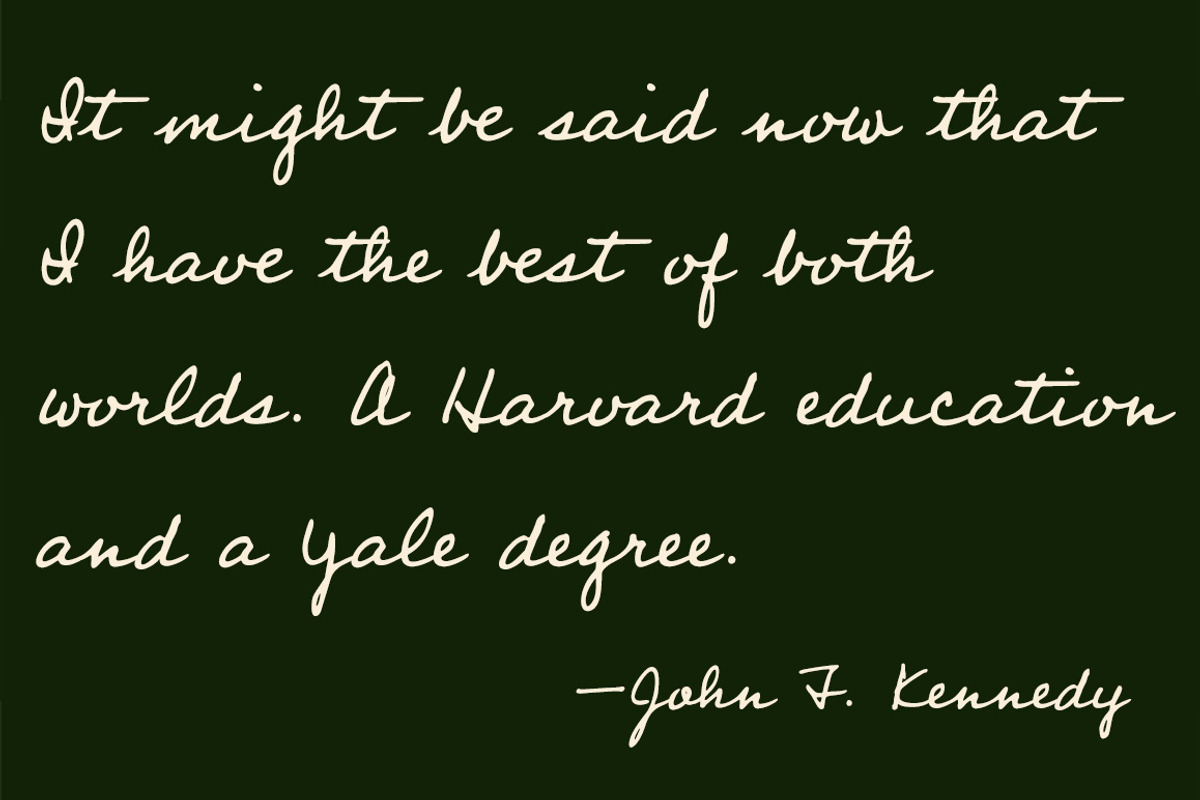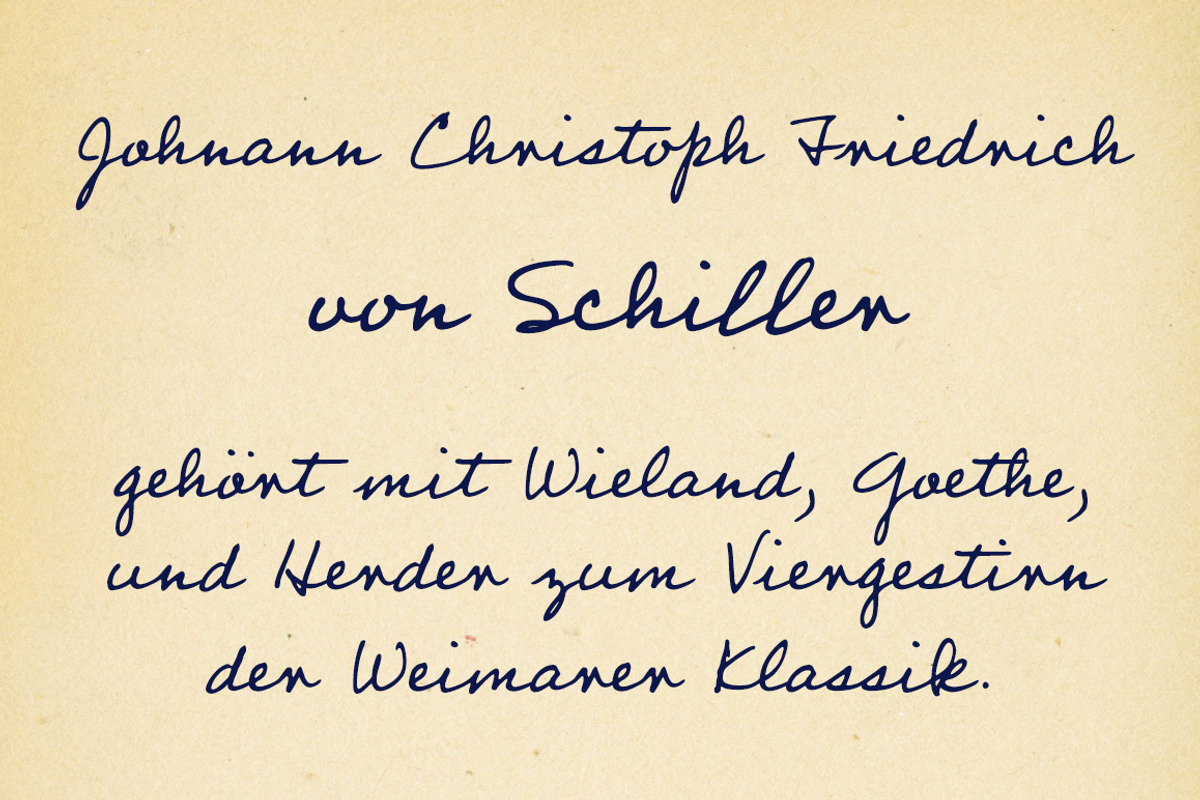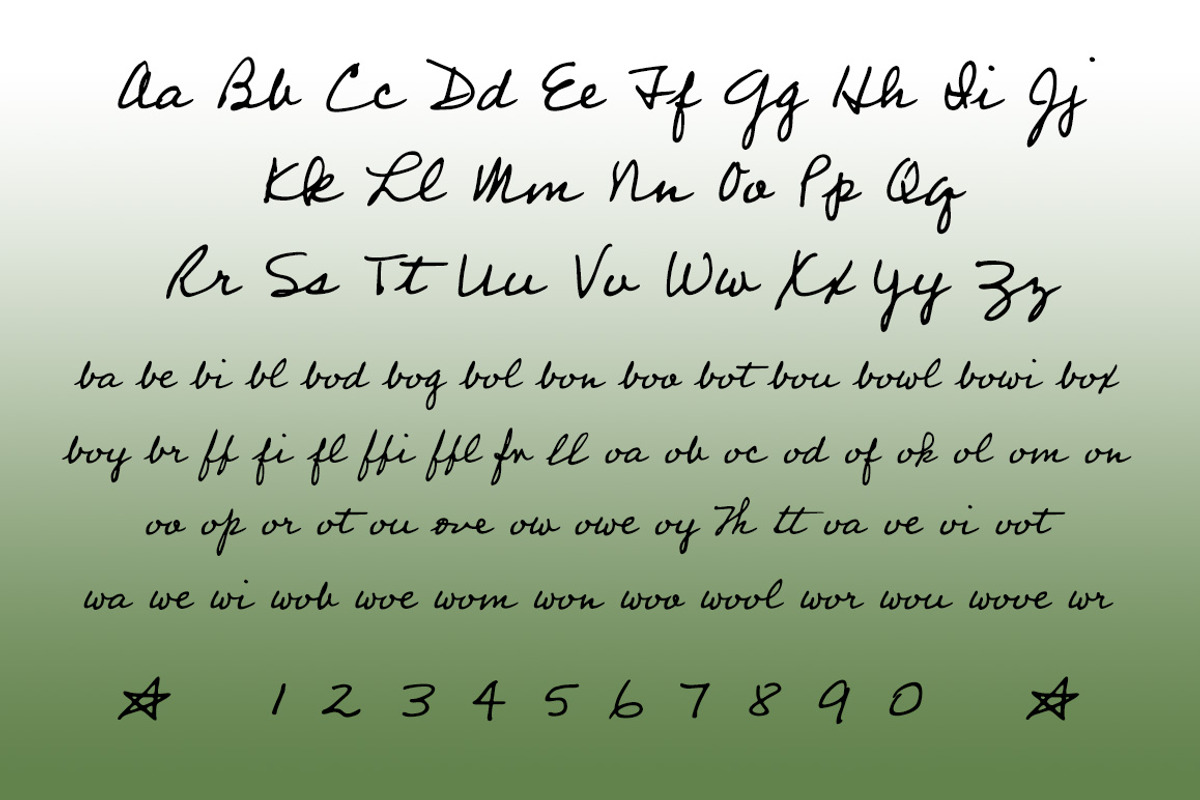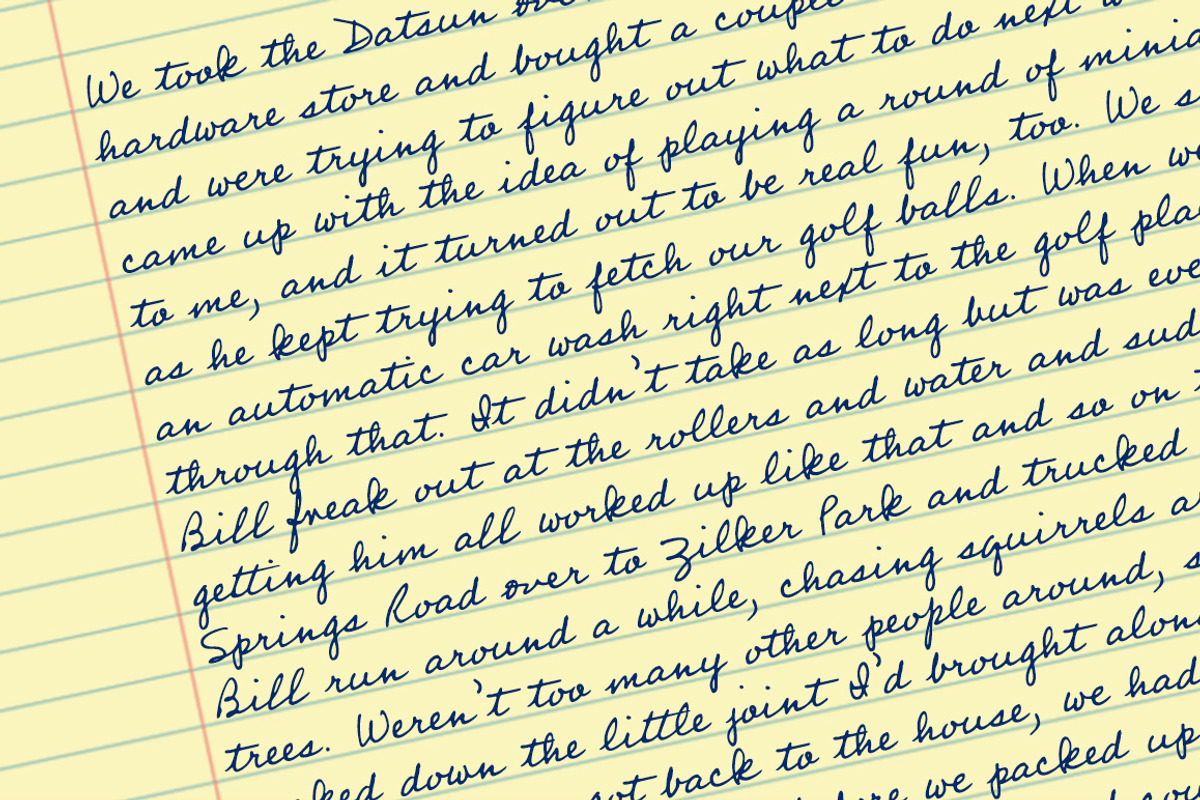
Professor, a font fit for a blackboard
Professor, a font fit for a blackboard by Three Islands Press is a font selected for branding, posters, packaging, typography.
- Its more than 500 glyphs include numerous contextual ligatures (which help simulate authentic handwriting) and complete Central/Eastern Euro
Why Professor, a font fit for a blackboard is worth a look
Professor, a font fit for a blackboard by Three Islands Press fits naturally into Branding, posters, packaging, typography.